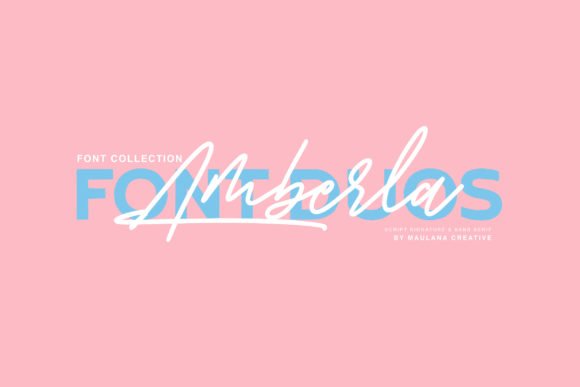
Discover the Perfect Pairing: Amberla Duo Font
You know that moment when a spark of creativity hits, and you envision the perfect project taking shape? Maybe it’s a branding concept, a logo design, or a stunning poster. Whatever it is, the right font can make all the difference. Introducing the Amberla Duo Font – a harmonious blend of a cool sans and an authentic script font, designed to elevate your visual storytelling.
The Amberla Duo Font is more than just a typography duo; it’s a powerful tool for designers. With its versatility and unique pairing, you can create one-of-a-kind artworks that capture the essence of your brand or message. Whether you’re a seasoned pro or a budding designer, this font duo is sure to inspire and empower you to take your designs to the next level.
Amberla Duo Font Key Features
- Font Size: 4 styles: Thin (100), Light (300), Regular (400), and Bold (700), providing versatility for different design applications.
- Unique Characteristics: Elegant, modern script with a touch of sophistication, ideal for branding, invitations, and other creative projects.
- Language Support: Multilingual support, including Latin, Cyrillic, and Greek alphabets, catering to diverse design needs.
Amberla Duo Font Review
The Amberla Duo font is a beautiful, elegant script font that exudes sophistication and style. It’s perfect for adding a touch of luxury to your designs. ✨ The unique combination of modern and vintage elements gives it a distinctive look that’s sure to grab attention.
One of the standout features of Amberla Duo is its versatility. It works well in a variety of settings, from formal invitations and certificates to packaging and branding materials. ✨ The font is also highly customizable, with a range of weights and styles to choose from.
- ⚠️ The font may be too ornate for some designs, particularly those with a more minimalist aesthetic.
- ⚠️ The font is not suitable for small text sizes, as the details can get lost.
- ⚠️ The font may require additional tweaking to achieve the perfect balance of modern and vintage elements.
Overall, I’m impressed with the Amberla Duo font. It’s a high-quality, stylish font that’s perfect for designers looking to add a touch of elegance to their work. While it may have some limitations, the benefits far outweigh the drawbacks. If you’re looking for a font that will make your designs stand out, Amberla Duo is definitely worth considering.
Practical Application Guide: Amberla Duo Font
Getting the Most Out of Amberla Duo Font
To get the most out of Amberla Duo Font, try the following tips:
- Use the font in combination with other elegant fonts to create a sophisticated look.
- Use the font for headings and titles to create a clear hierarchy of information.
Amberla Duo Font is commonly used for:
- Wedding invitations and station
Alternatives to Amberla Duo Font
Carolyna Pro is a modern script font that combines elegance and sophistication. It is ideal for wedding invitations, luxury brands, and high-end marketing materials. Compared to Amberla Duo Font, Carolyna Pro has a more refined and precise feel, making it suitable for projects that require a touch of luxury.
Great Vibes is a beautiful, hand-painted script font that is perfect for creating a unique and eye-catching design. It is ideal for music festivals, food trucks, and other creative projects. Unlike Amberla Duo Font, Great Vibes has a more playful and casual feel, making it suitable for projects that require a relaxed and carefree vibe.
Alex Brush is a elegant script font that is perfect for creating a sophisticated and refined design. It is ideal for luxury brands, high-end marketing materials, and special occasions. Compared to Amberla Duo Font, Alex Brush has a more delicate and intricate feel, making it suitable for projects that require a touch of sophistication.